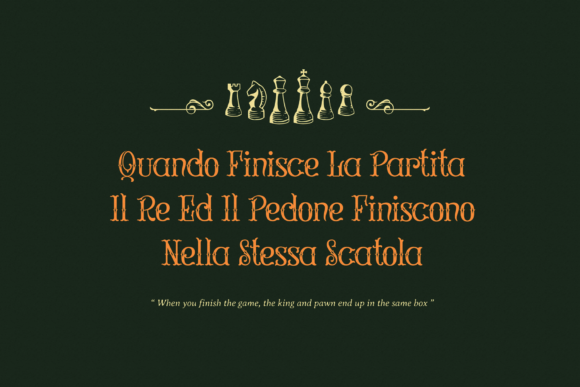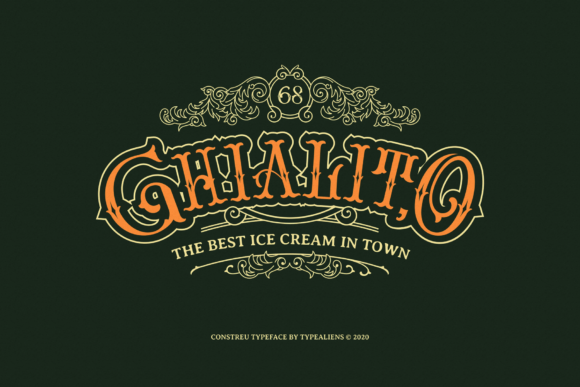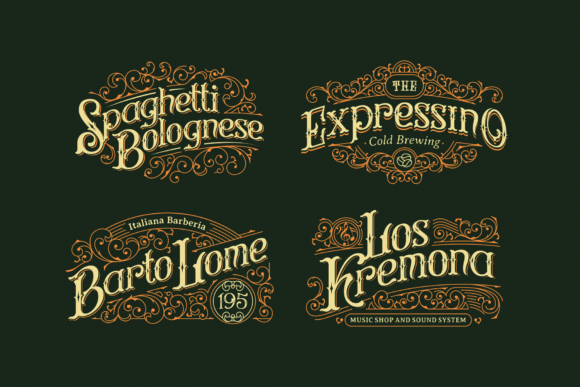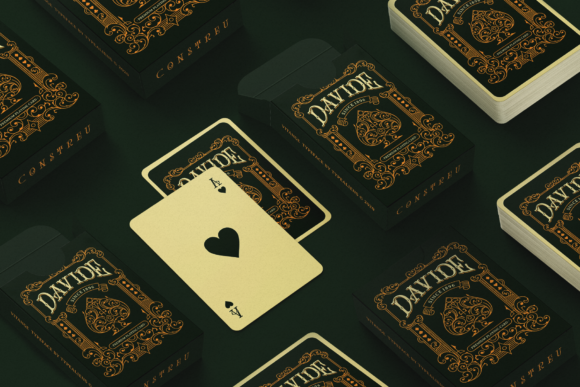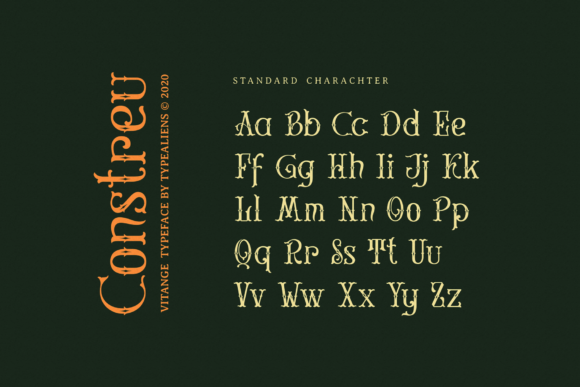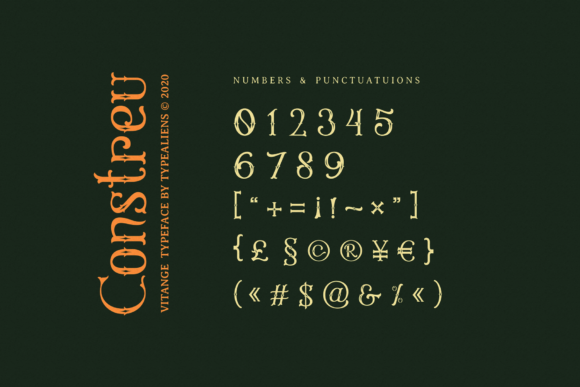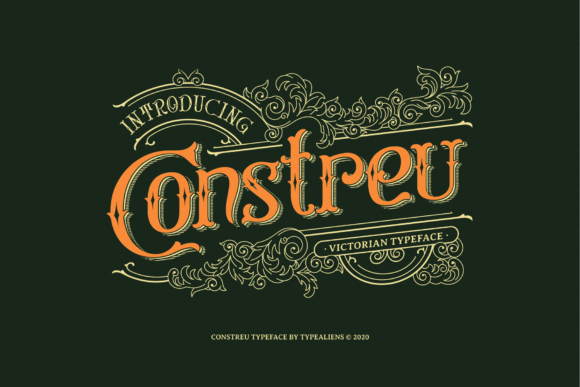
Discover the Elegance of Construe Font: A Victorian Style Display Font
In the world of typography, fonts play a crucial role in conveying messages, expressing emotions, and creating visual identities. For designers and crafters, finding the perfect font can be a daunting task, especially when looking for something unique and eye-catching. This is where Construe Font comes in – a stunning Victorian-style display font that is sure to make your projects stand out from the crowd.
What is Construe Font?
Construe Font is a beautifully crafted display font inspired by the ornate and elegant Victorian era. Its intricate details, flourishes, and classic style make it an ideal choice for designers and crafters looking to add a touch of sophistication to their work. Whether you’re creating a logo, poster, or social media graphic, Construe Font is sure to make a statement.
Key Features of Construe Font
- Victorian Style: Construe Font boasts an authentic Victorian style, complete with ornate details and flourishes that evoke a sense of nostalgia and elegance.
- Display Font: Designed specifically as a display font, Construe Font is perfect for headlines, titles, and short texts that require a touch of sophistication.
- Highly Readable: Despite its ornate nature, Construe Font remains highly readable, making it suitable for a wide range of applications, from print to digital media.
- Multilingual Support: Construe Font supports multiple languages, ensuring that you can use it for projects that require non-English text.
Why Choose Construe Font?
With so many fonts available, why should you choose Construe Font for your next project? Here are just a few reasons:
- Unique and Eye-Catching: Construe Font’s Victorian style and ornate details make it a standout font that will grab attention and leave a lasting impression.
- Versatile: Whether you’re working on a logo, poster, or social media graphic, Construe Font can be used for a wide range of applications.
Tips for Using Construe Font
To get the most out of Construe Font, here are a few tips to keep in mind:
- Use it Sparingly: Due to its ornate nature, Construe Font works best when used sparingly. Use it for headlines, titles, or short texts to create visual interest.
- Pair it with a Simple Font: Pair Construe Font with a simple, sans-serif font to create visual contrast and make your text more readable.
- Experiment with Colors: Construe Font looks stunning in a range of colors, from rich golds and blacks to soft pastels. Experiment with different colors to find the perfect look for your project.
In conclusion, Construe Font is a gorgeous Victorian-style display font that is sure to make your projects stand out from the crowd. Its intricate details, classic style, and high readability make it an ideal choice for designers and crafters looking to add a touch of elegance to their work. With its versatility, ease of use, and unique style, Construe Font is a must-have for anyone looking to elevate their typography game.